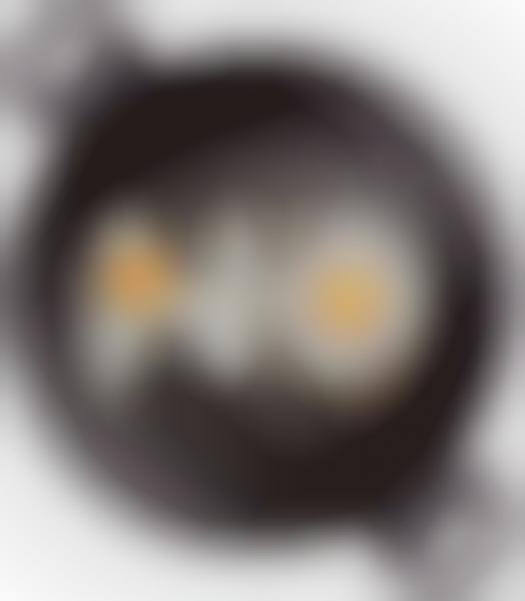
The art of typography has really taken off, and with the creations that 'Handmade Font' studio is pumping out, it continues to evolve. The fried egg font that the brilliant studio has recently created is a perfect example of how creative you can be with typography.
The font took roughly three hours to complete and needed over 1,000 eggs, ten pans and one bottle of oil. Not only was it a time consuming task, but there was also five burned fingers -- never let anyone tell you typography is easy. 'Handmade Font' used the perfectly created sunny-side-up eggs to shape the different letters of the alphabet.
As each art form evolves, incredibly creative projects like this one will continue to be unveiled. The best thing about it is that each new project will inspire more.